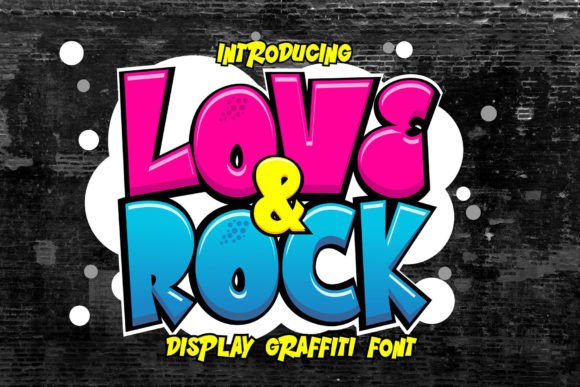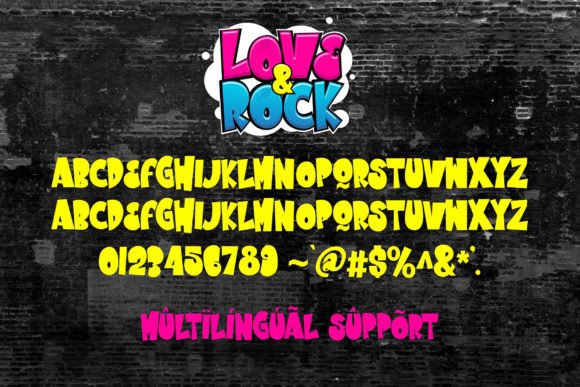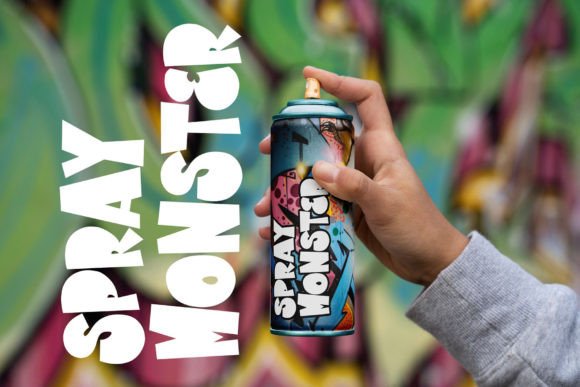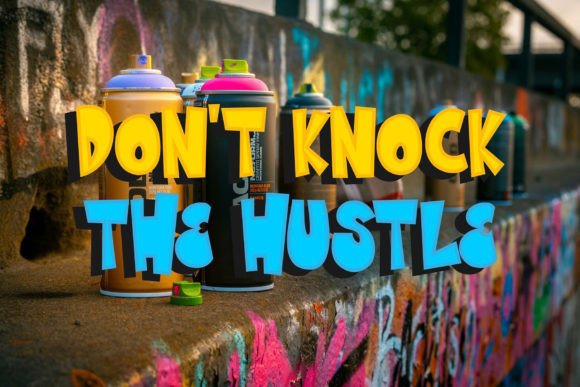
Love and Rock Font
About the Love and Rock Font
Meet Love and Rock Font, a stunning font that brings a touch of elegance and professionalism to any design. Love and Rock is a bold and whimsical display font, characterized by its thickness and quirky design. It features playful and unconventional letterforms, adding a touch of personality to the text. Love and Rock is well-suited for creative projects that require a bold and eye-catching typographic style with a hint of whimsy. It could be an excellent choice for designs related to music, entertainment, or any context where a vibrant and distinctive font is desired.
Love and Rock excels in headlines, posters, and short, impactful branding elements where its bold personality shines. It’s ideal for projects needing a fun, rebellious feel—think music festival posters, children’s book titles, or edgy brand logos. However, its whimsical forms make it unsuitable for body text or UI elements requiring high readability. Long blocks of text set in Love and Rock would be visually overwhelming and difficult to read.
Pairing Love and Rock effectively requires a contrasting typeface to balance its boldness. A clean sans-serif like Montserrat or a more refined serif such as Garamond would provide a sophisticated counterpoint. For a more playful approach, consider pairing it with a rounded geometric sans-serif.
Its core personality is energetic and playful, yet undeniably bold. Avoid contexts requiring sophistication or elegance; Love and Rock thrives in vibrant, expressive designs.
Love and Rock Font Usage Examples
Love and Rock Font Example